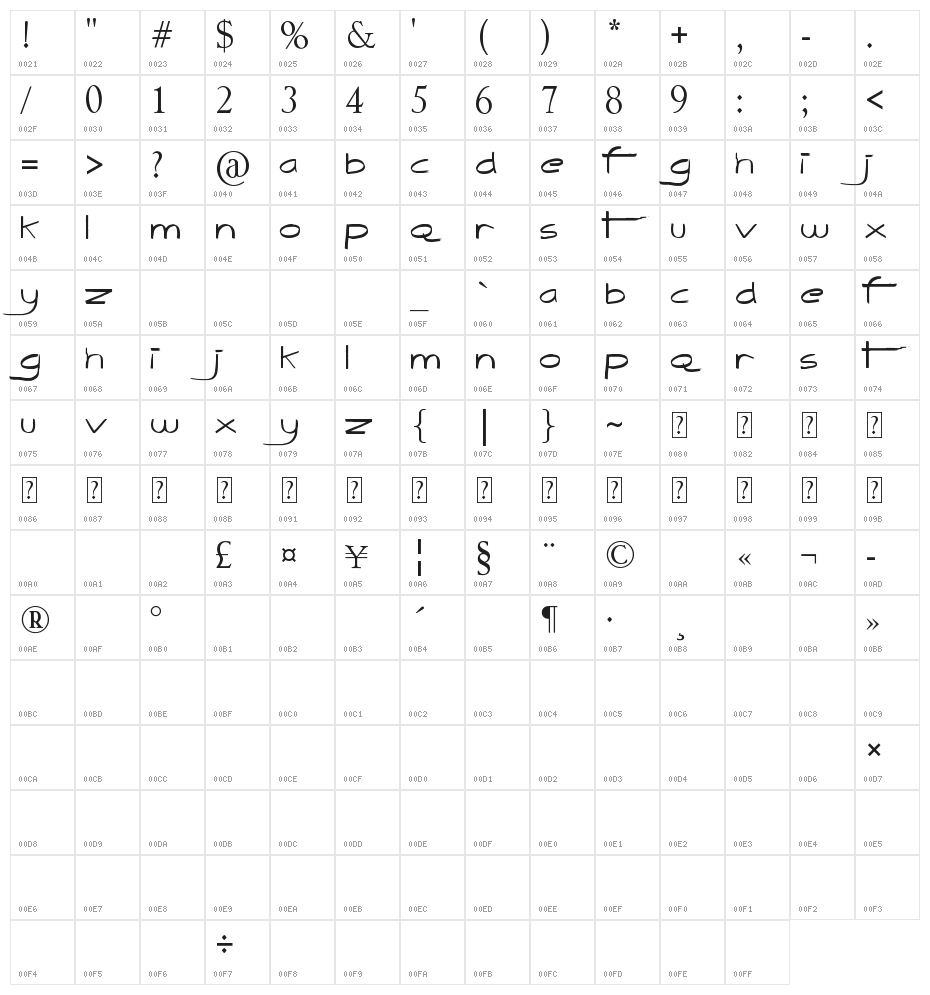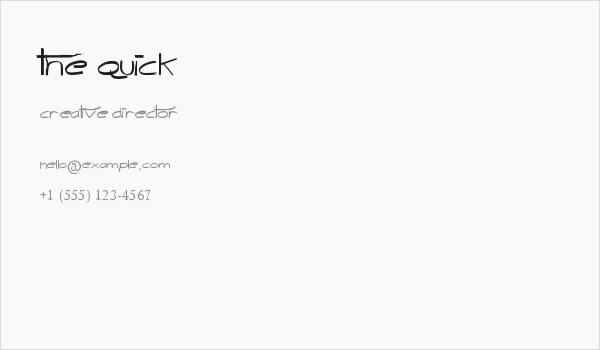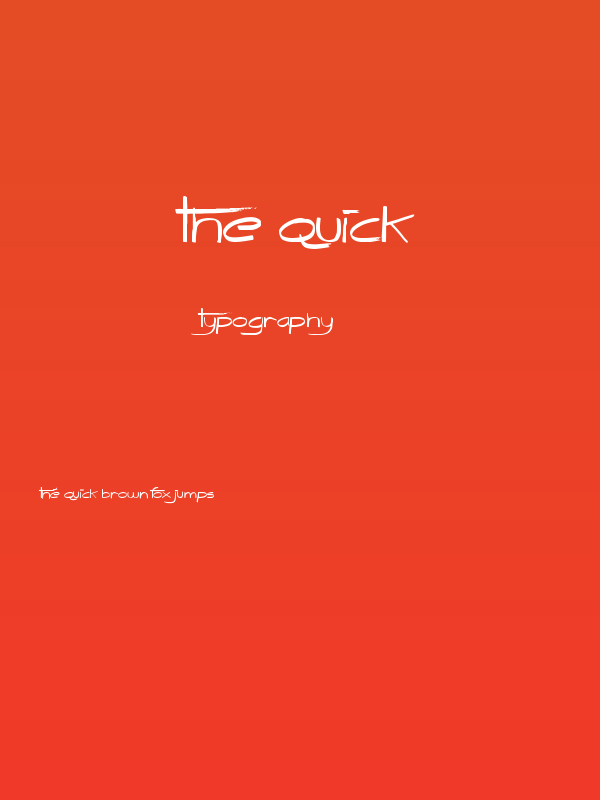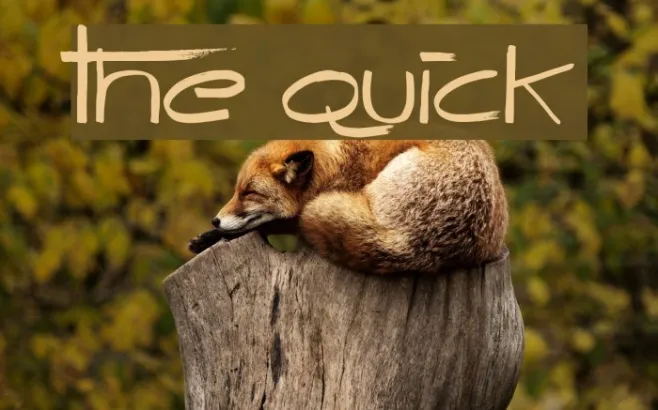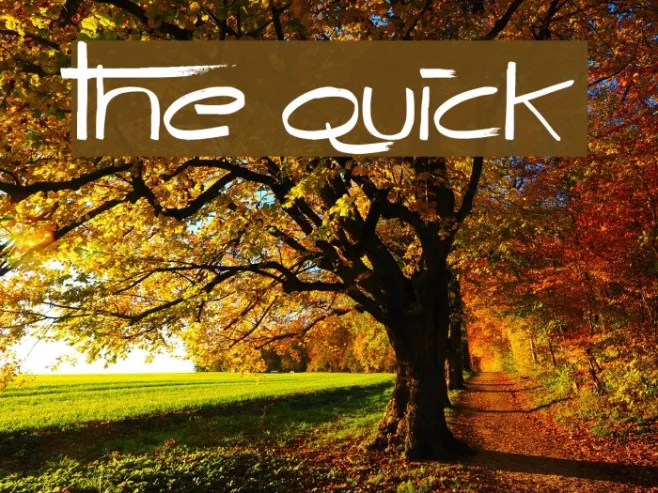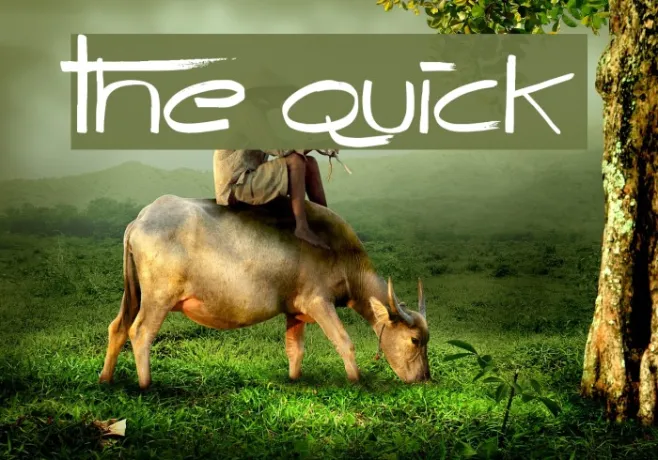
The Quick Font
The Quick Description
This font features a unique and artistic design, characterized by its hand-drawn, sketch-like appearance. The letters have a playful and informal style, with uneven strokes and varying line thicknesses that give it a dynamic and energetic feel. The uppercase and lowercase letters maintain a consistent style, with some characters having distinctive flourishes and extensions. The numerals are bold and clear, complementing the overall aesthetic. Special characters are creatively integrated, maintaining the font's whimsical nature.
| Use Case | Logos, Posters, Creative projects |
| Proposed Projects | Ideal for creative projects such as children's books, artistic posters, and playful branding materials. |